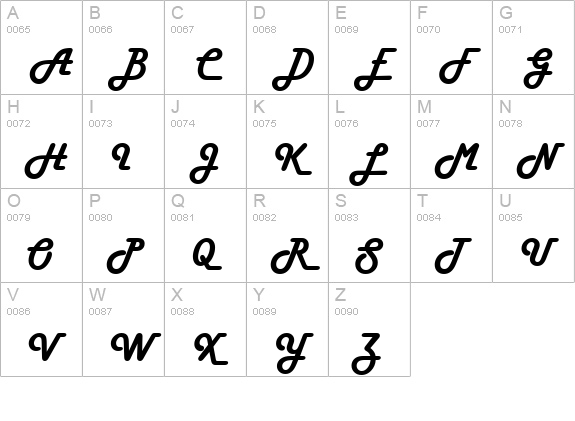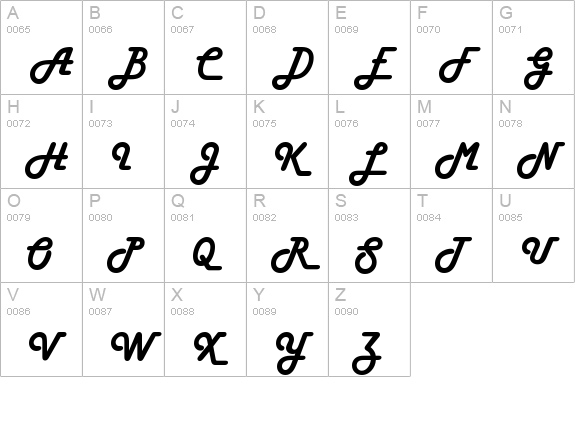
Harlow ICG Solid Font Details
Harlow ICG Solid, a beautifully crafted font, is a true gem for designers and typographers alike. Its elegant and sleek design exudes sophistication and versatility, making it suitable for a wide range of projects. Whether you're working on a logo, branding materials, or creative artwork, Harlow ICG Solid will effortlessly elevate your designs to new heights. What sets Harlow ICG Solid apart is not only its stunning aesthetic appeal but also its accessibility. This extraordinary font is available for free download exclusively at FontsMarket.com, allowing designers to easily incorporate it into their projects without any financial burden. With Harlow ICG Solid, you can enjoy the benefits of a premium font without having to spend a dime. The smooth curves and strong presence of Harlow ICG Solid make it a standout choice for headings, titles, and other display purposes. Its bold yet refined letterforms command attention and lend a touch of class to any design. Additionally, the font's exceptional legibility ensures that your message is conveyed effortlessly to your audience. Harlow ICG Solid is the epitome of versatility. It effortlessly transitions from formal to informal settings, making it suitable for a wide range of applications. Whether you're designing for a corporate brand, a fashion label, or an artistic project, Harlow ICG Solid adapts effortlessly to your needs. Harnessing the power of Harlow ICG Solid is a breeze, thanks to its extensive character set and language support. This font allows you to express yourself in various languages and ensures that your message is understood by a global audience. In conclusion, Harlow ICG Solid is a stunning font that combines elegance, versatility, and accessibility. Its freely available download at FontsMarket.com makes it a must-have for designers seeking to add a touch of sophistication to their projects without breaking the bank. Embrace the beauty and power of Harlow ICG Solid and let your creativity soar to new heights.